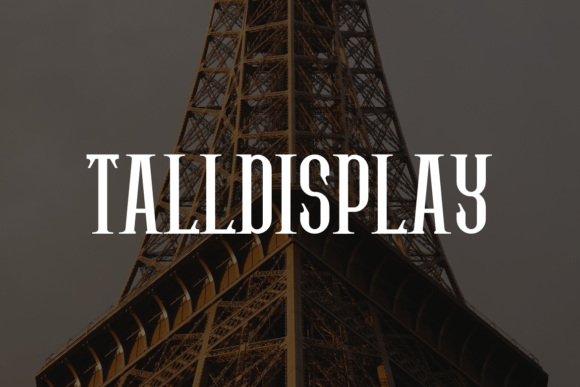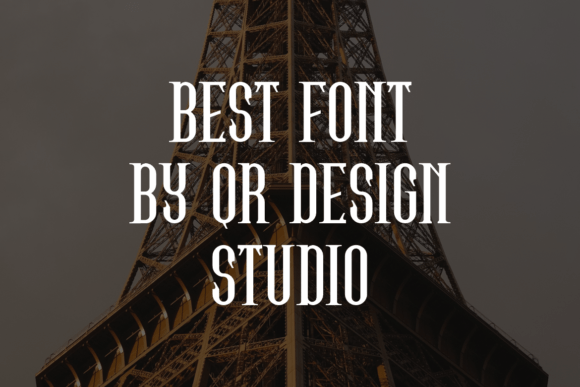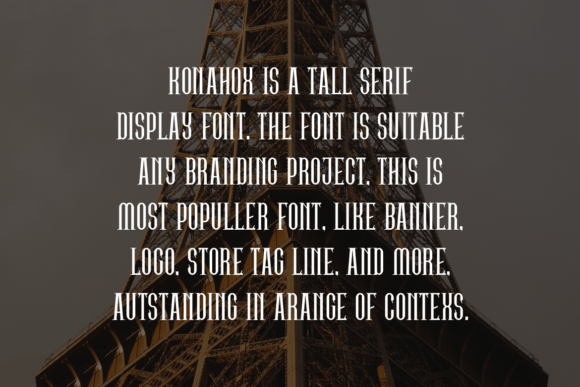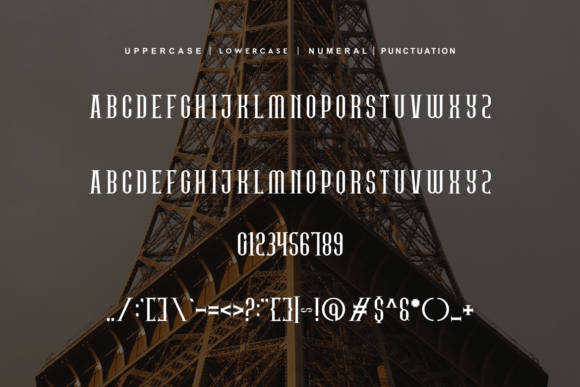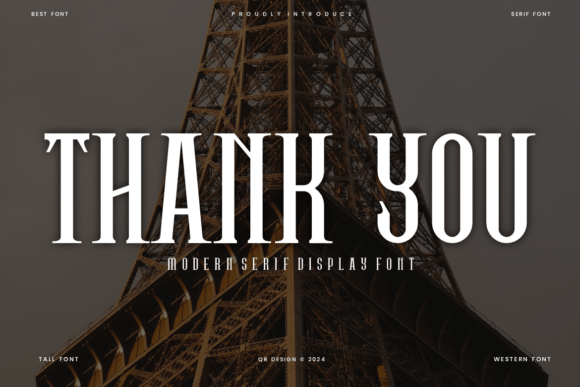
Introduction to Konahox Font
Konahox Font is a bold and authentic display font.
The font is suitable for any branding project like logo, sport, and many more Outstanding in a wide range of contexts.
Konahox Font offers exceptional quality and versatility, making it a valuable addition to your design toolkit. Whether you’re creating for personal projects or commercial use, Konahox Font delivers professional results.